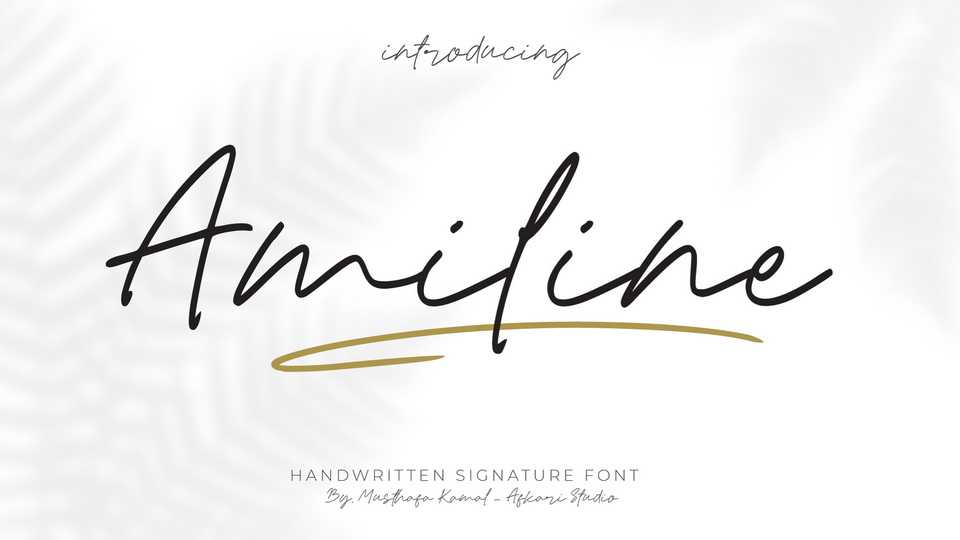
Download Amiline font, a signature style handwritten script with a natural flow. Amiline font is suitable for any branding, wedding invitation, romantic project, studio brand, logo, invitations, social media and more.
Designer: Afkari Studio